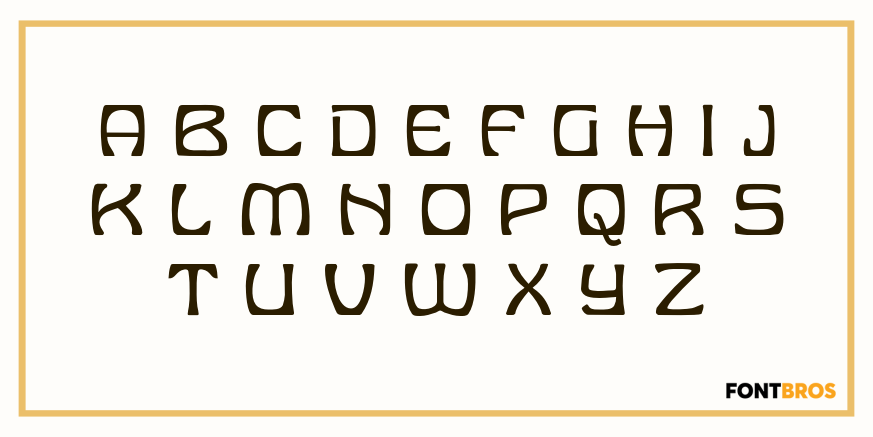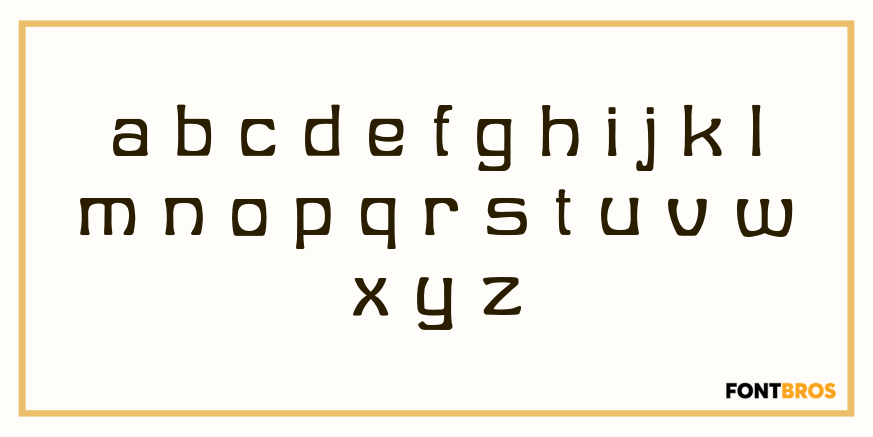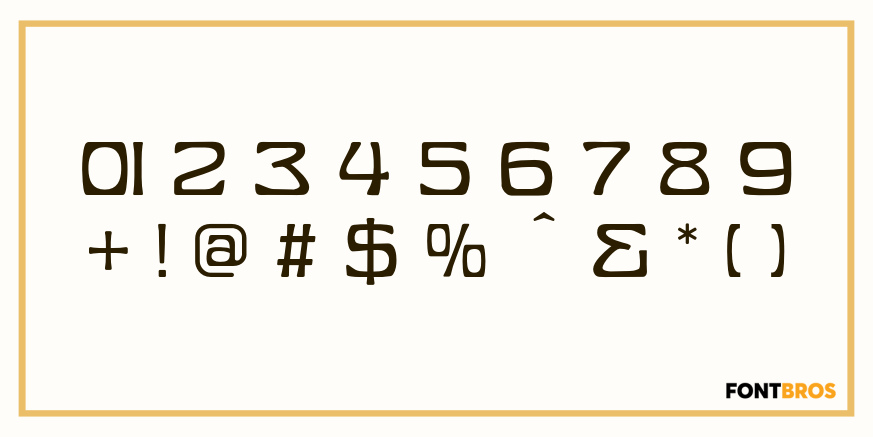
Moritz
Font Family by Solotype
Loosely based on an early 20th century type from the Brussels foundry of Van Loey-Nouri.
Many European foundries had fonts of this general design. Schelter & Gieseke of Germany had several.